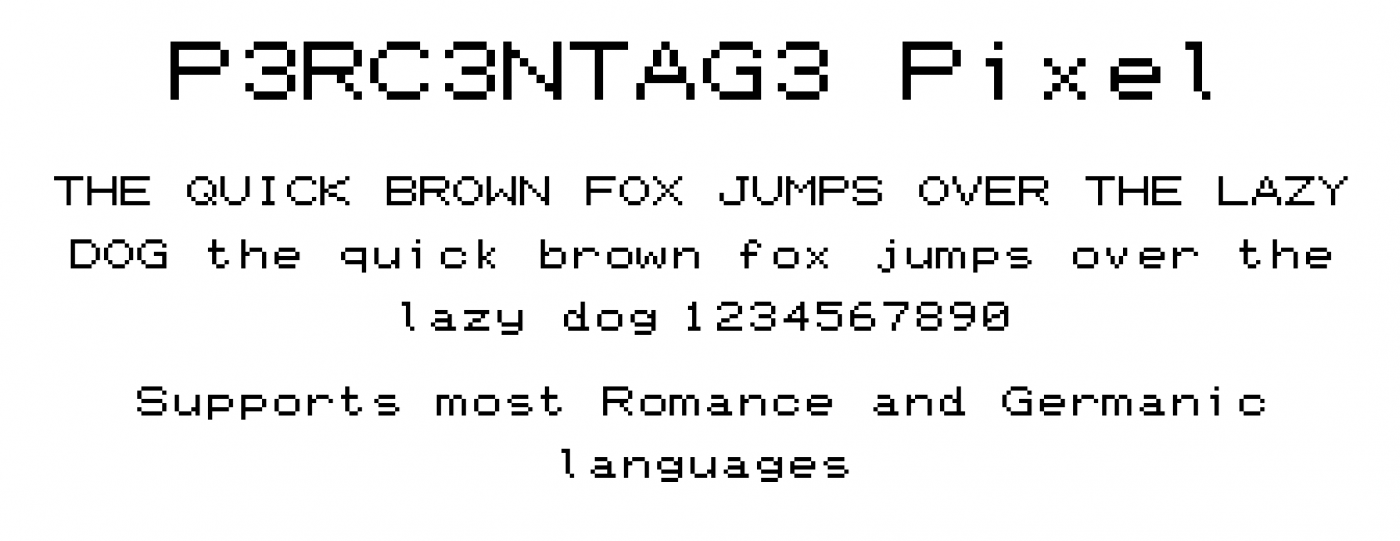
• A pixel font where every character is 8 pixels wide maximum. This font covers Latin, IPA, Greek, Cyrillic, Armenian, Georgian, Cherokee, and more!
No combining diacritical marks because I can't figure out how to use them and make the font look good at the same time. (and also making diacritical marks is boring for me; I'd rather be making letters). I might eventually create diacritical marks, though.